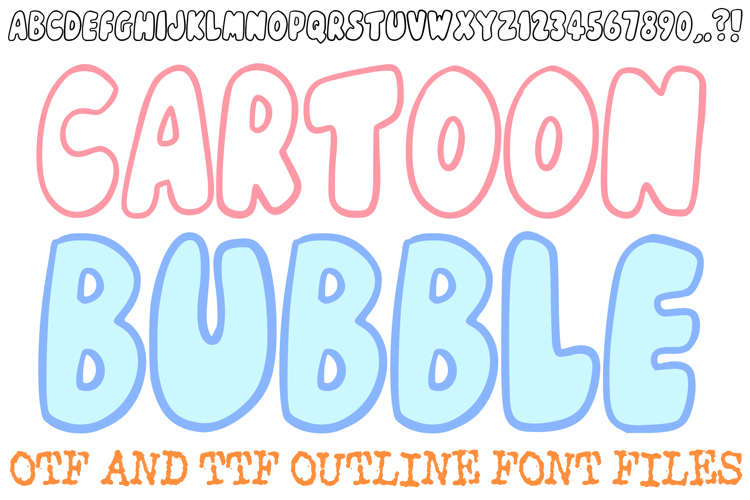
Cartoon Bubble Font Hand Drawn Comic Lettering ABC OTF Type
The Cartoon Bubble Font is a playful and high-energy display typeface designed to bring a sense of airy joy to your creative projects. Featuring bold, pillowy silhouettes and soft, rounded edges, each character feels like it is floating right off the page. It is the perfect choice for playful nursery wall art, friendly boutique branding, custom stickers, and vibrant social media headers.
Each character is meticulously hand-drawn to maintain a consistent "balloon" weight while offering a unique, artisan-crafted feel. The high-contrast white centers and bold black outlines ensure your text remains readable and high-impact, whether you are designing for print or digital. From personalized t-shirts to whimsical classroom materials, this font provides an approachable, fun aesthetic for every age.
Soft Puffy Silhouettes: The thick, rounded construction provides a friendly and inviting visual presence.
Clean Bold Outlines: Perfect for layered designs, vinyl cutting, and high-quality sublimation projects.
Friendly Modern Aesthetic: Perfectly captures the current trend of "soft-bold" typography used in high-end lifestyle brands.